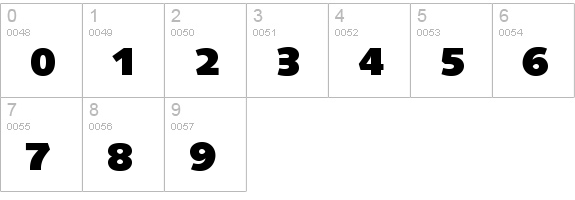
Saxony-Heavy is a heavy, high-impact variant in the Saxony typeface family \xE2\x80\x94 well suited to high-impact headlines, posters, and display advertising.
Introducing Saxony-Heavy, a bold and captivating font that will effortlessly elevate your designs to new heights. With its strong and commanding presence, Saxony-Heavy commands attention and demands to be noticed. This font exudes a sense of power and confidence, making it the perfect choice for headlines, logos, posters, and any project that requires a touch of boldness. Saxony-Heavy is meticulously crafted, with each letter designed to perfection. Its strong and thick strokes create a striking visual impact, while its precise curves and clean lines give it a sleek and modern feel. This font is versatile and adaptable, seamlessly fitting into a variety of design styles and themes. One of the greatest features of Saxony-Heavy is that it is freely available to download at FontsMarket.com. This means that you can enjoy all the benefits of this incredible font without any cost. Whether you are a professional designer or a creative enthusiast, having access to high-quality fonts like Saxony-Heavy can make a world of difference in your projects. Download Saxony-Heavy today and unlock a world of design possibilities. Let this font be your secret weapon in making a lasting impression. With its boldness, elegance, and professional touch, Saxony-Heavy is sure to become a staple in your design arsenal. Don't miss out on this opportunity to enhance your creations with a font that is both powerful and free.